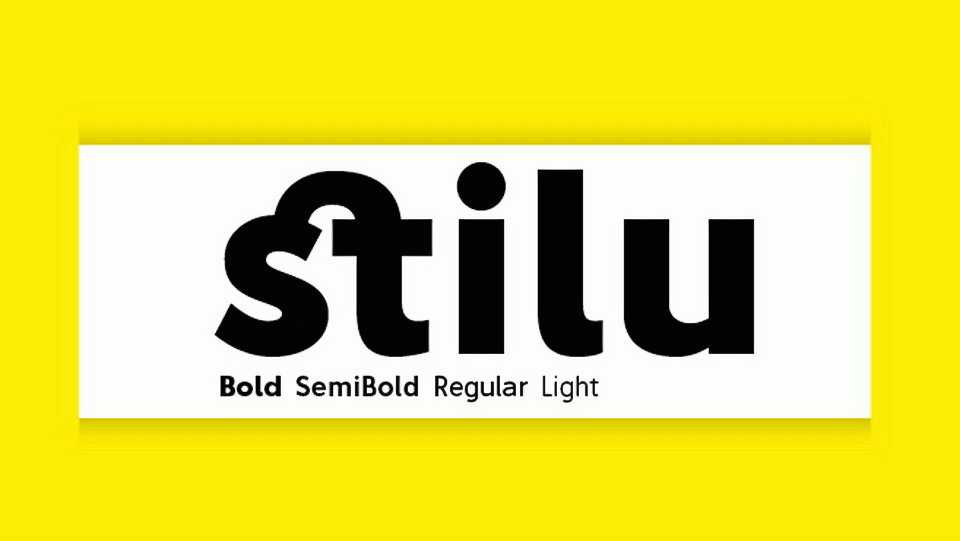
Download Stilu typeface, a sans serif font family in four weights plus Obliques. Stilu works great for headlines as well as texts, perfectly suits for various designs projects.
Designer: Genilson Lima Santos